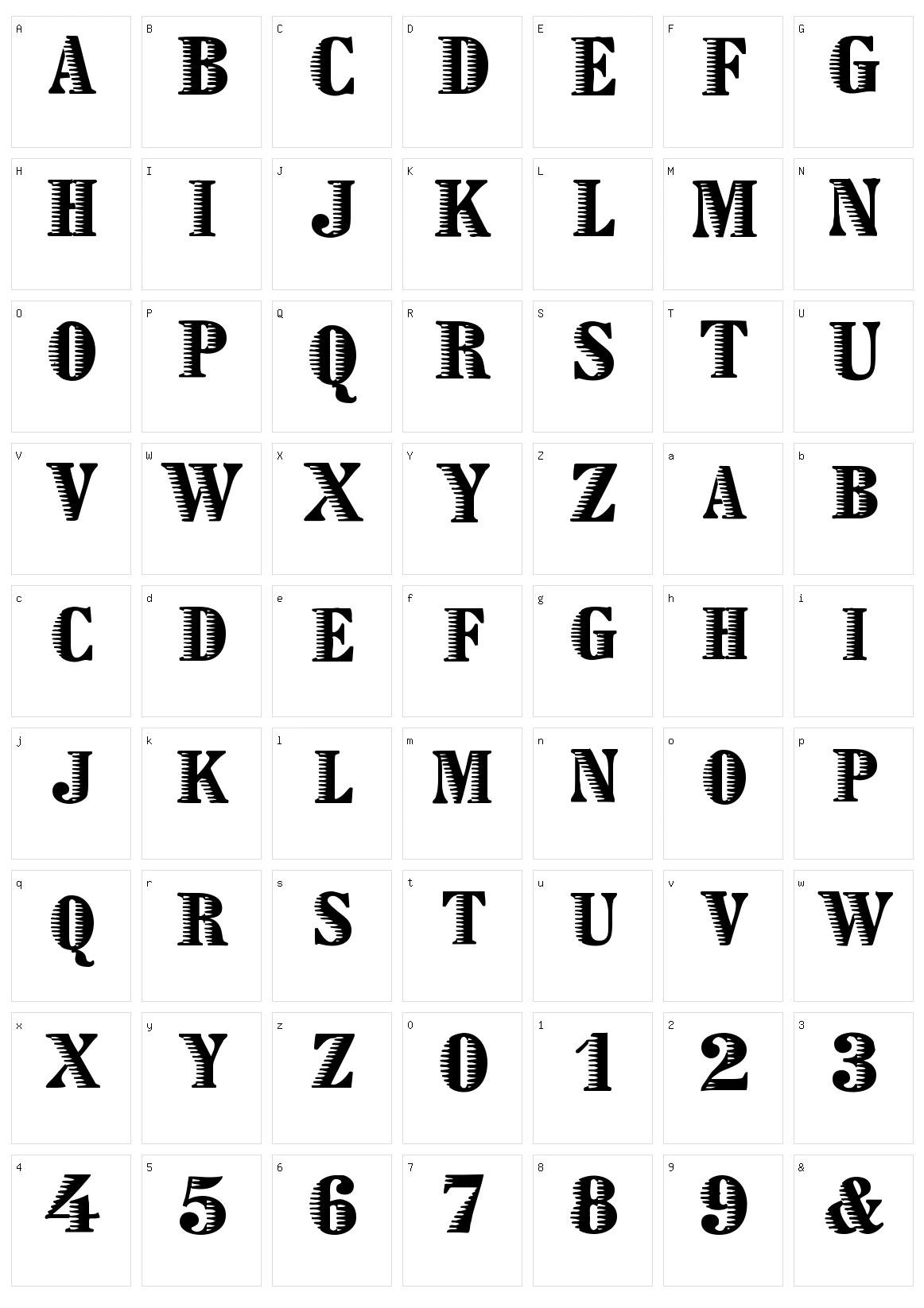
The free font Zebraesq is carefully designed by Manfred Klein, showcasing a thoughtful balance of creativity and usability and falls under the Retro font style. When you download the ZIP file, it contains only 52.04 KB of font files, making it lightweight and quick to download. Please review the license details below to understand permitted usage and distribution rights. If license information is not available, we recommend using this font for personal projects only or contacting the author directly for commercial usage permissions.